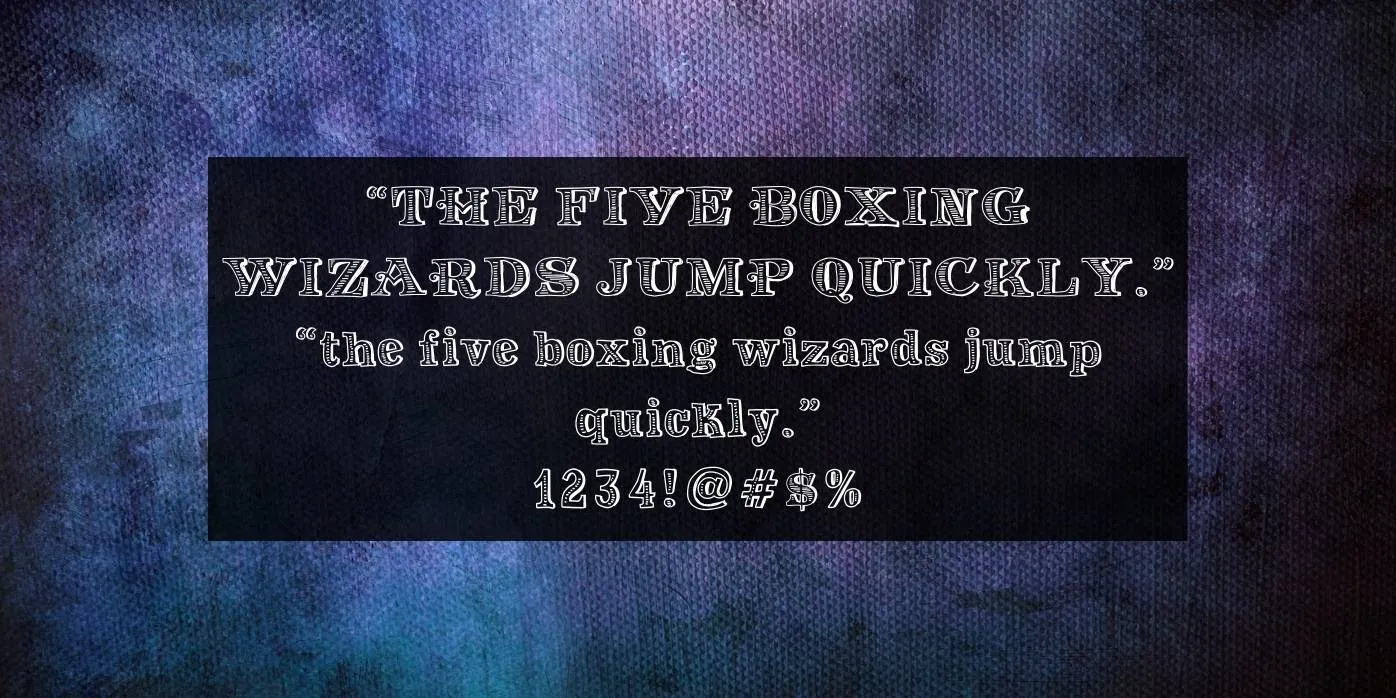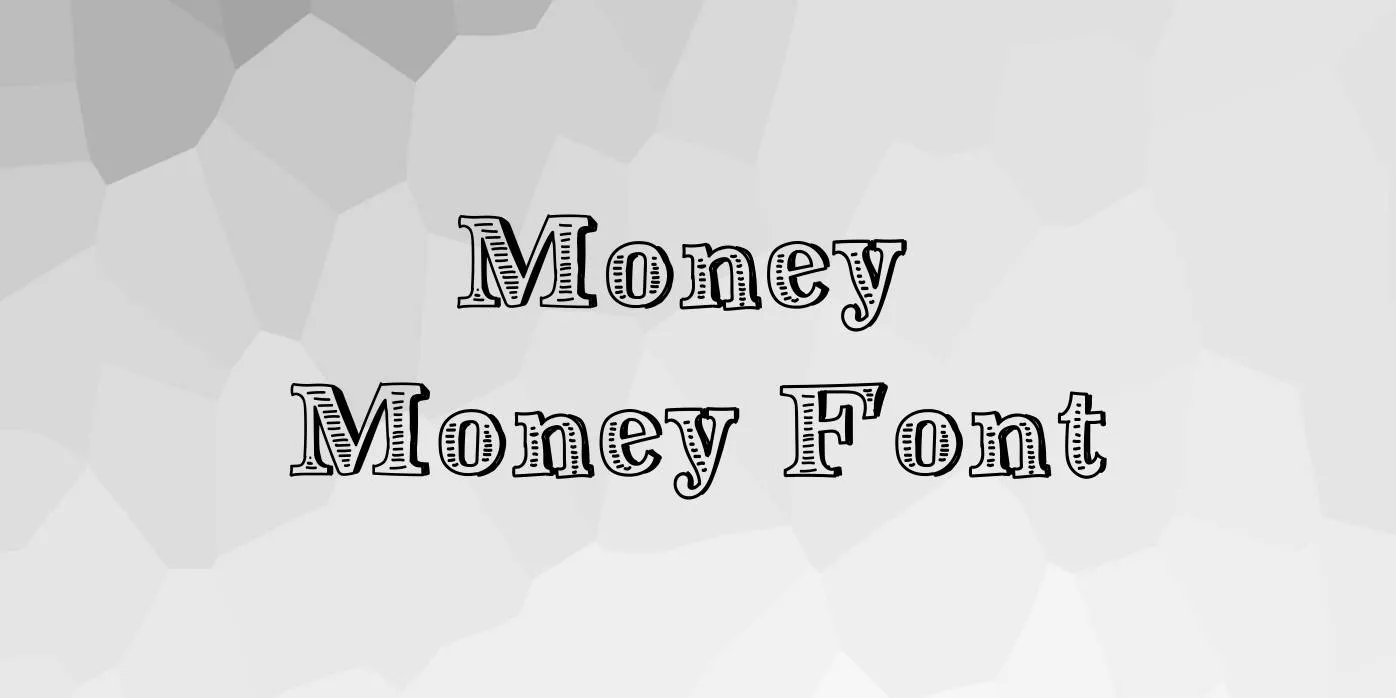
Money Money Font
In this post, we introduce a stylish typeface that is known by the name Money Money Font. This family was designed by Galdino Otten. This typeface belongs to the fancy font family. You can also use dragonball z font which is closest to this font family.
This font is available in two different styles which are named Regular and Bold. The regular style has 206 characters whereas the bold one consists of 204 characters. Both these styles support the Latin character set. Its copy and paste function is best for all text designs.